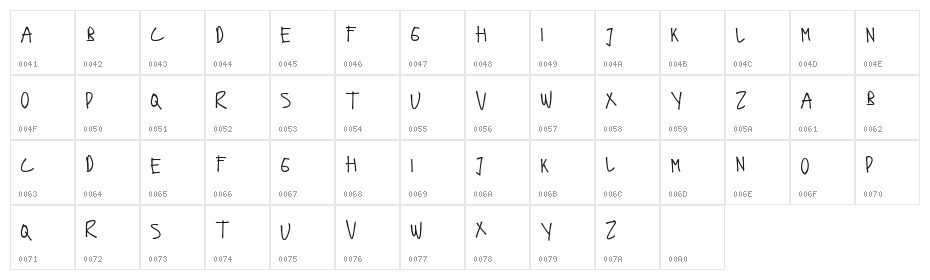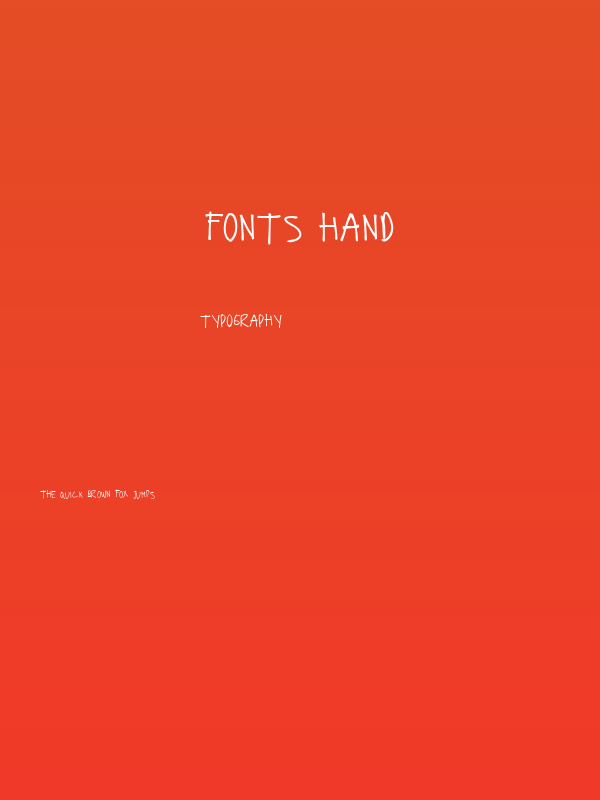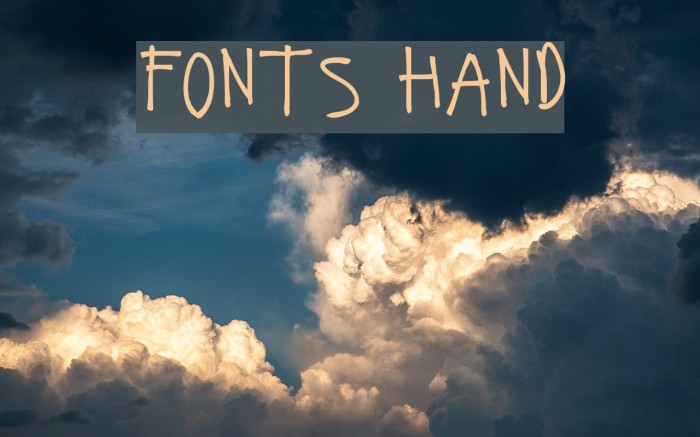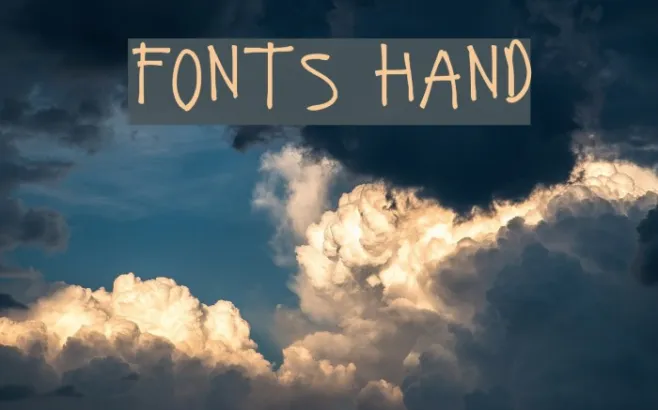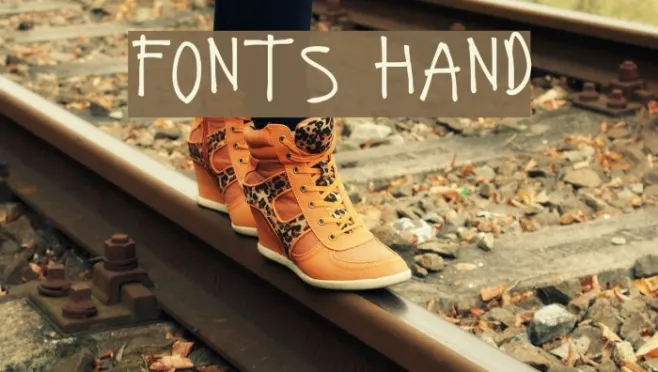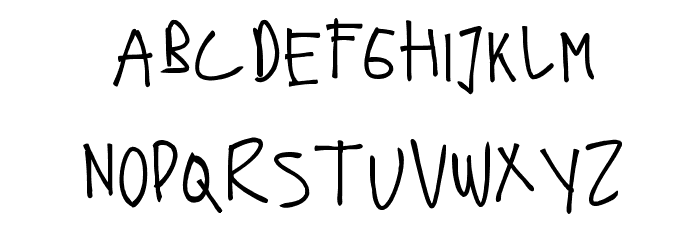
Fonts Hand Font
Fonts Hand Description
This font exudes a casual and playful handwritten style, characterized by its irregular and slightly uneven strokes that mimic the natural flow of handwriting. The letters are slightly slanted, adding to the informal and relaxed feel. Each character is distinct, with a unique personality that makes the font stand out. The uppercase and lowercase letters maintain a consistent style, with rounded edges and a friendly appearance. The font's simplicity and charm make it versatile for various creative projects.
| Proposed Projects | Ideal for greeting cards, children's books, personal blogs, and informal branding projects. |